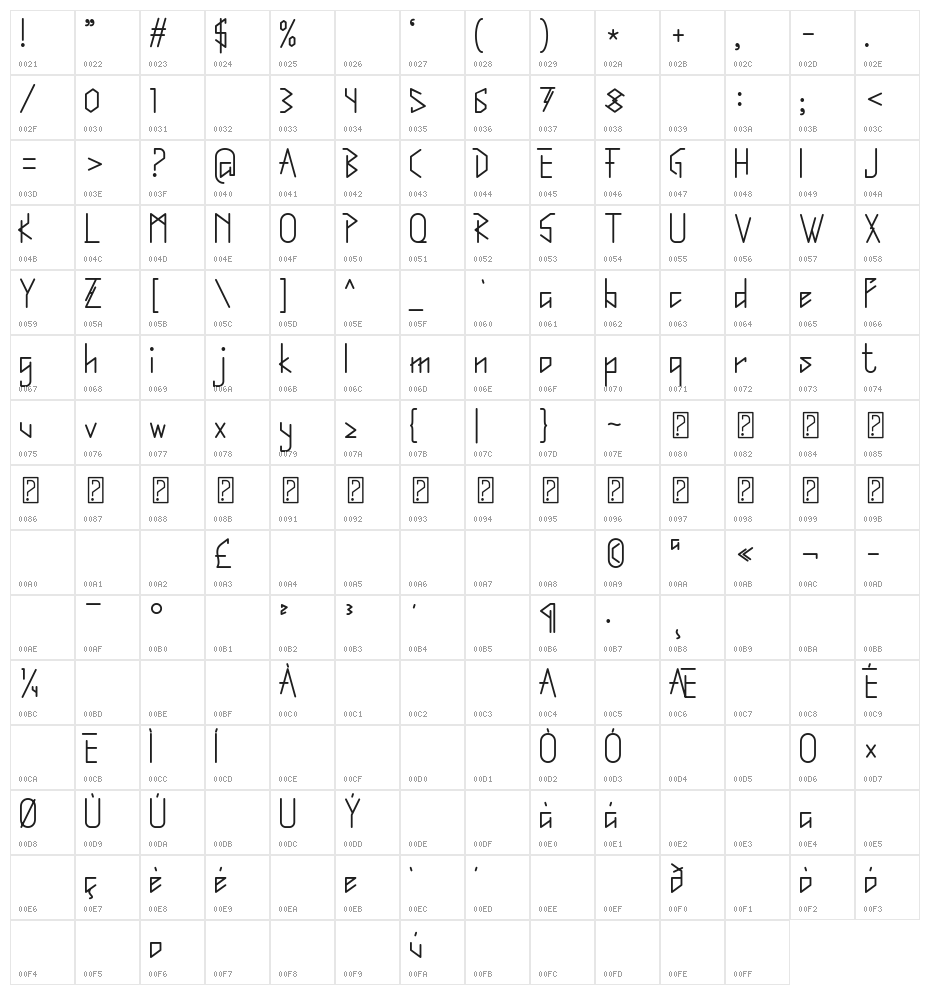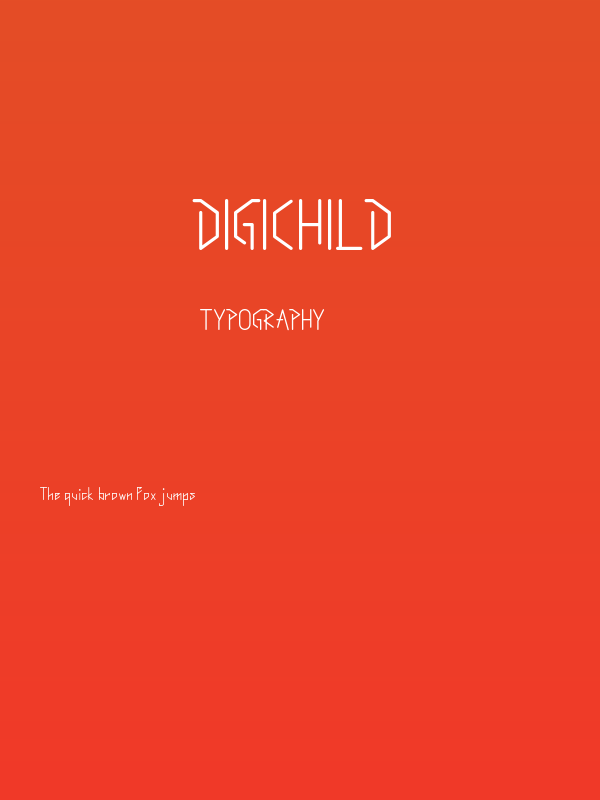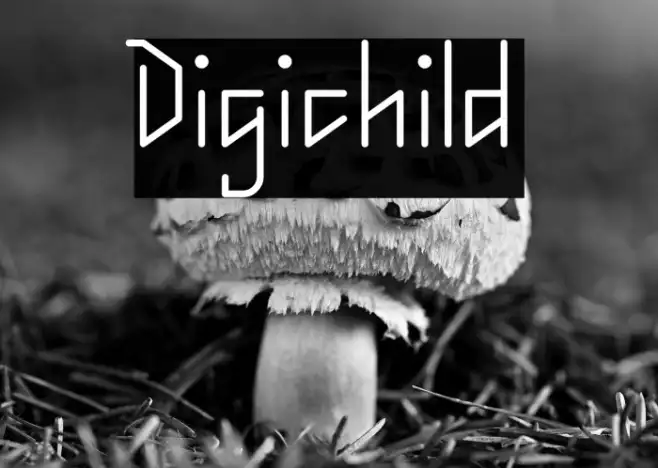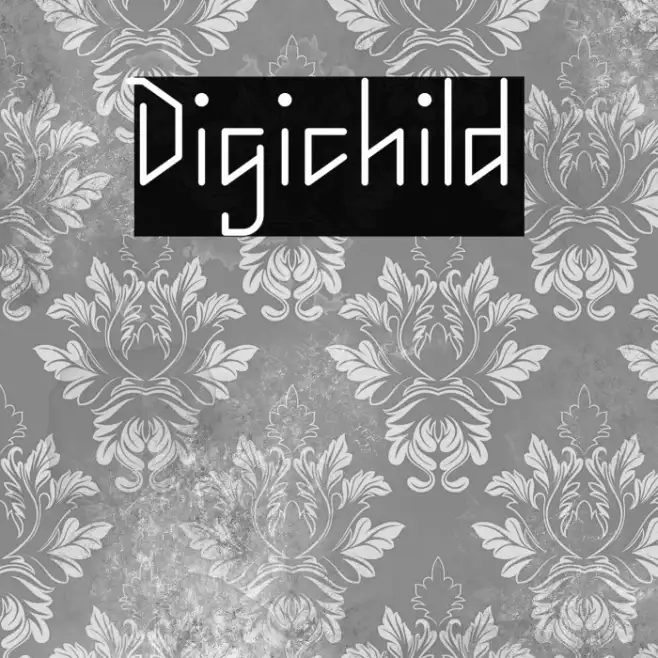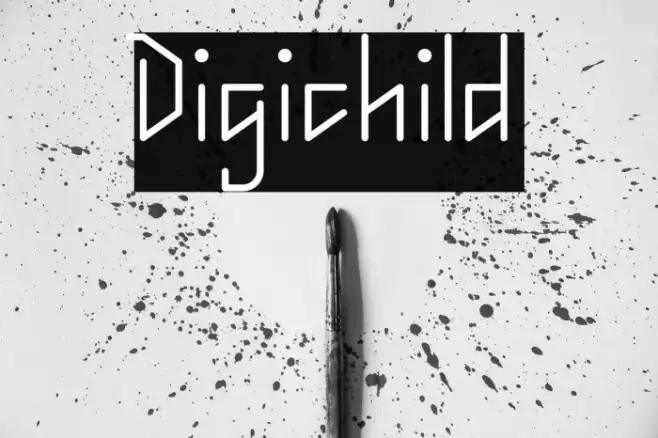
Digichild Font
Digichild Description
This font features a unique, futuristic design with geometric elements and a digital aesthetic. The characters are composed of straight lines and angles, giving it a technical and modern feel. The uppercase and lowercase letters maintain a consistent style, with some characters incorporating diagonal cuts and sharp edges. Numbers and special characters follow the same design principles, ensuring a cohesive look across all glyphs. The font's structure is clean and minimalistic, making it suitable for projects that require a contemporary and tech-inspired appearance.